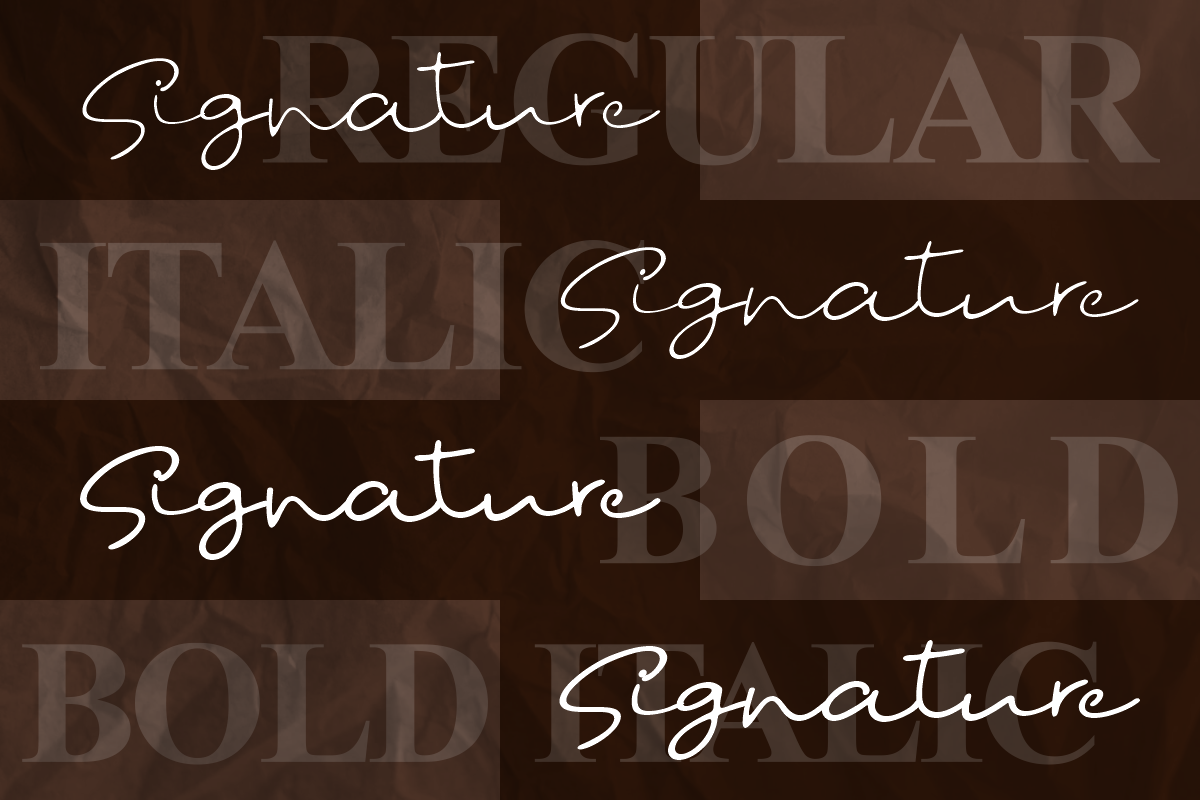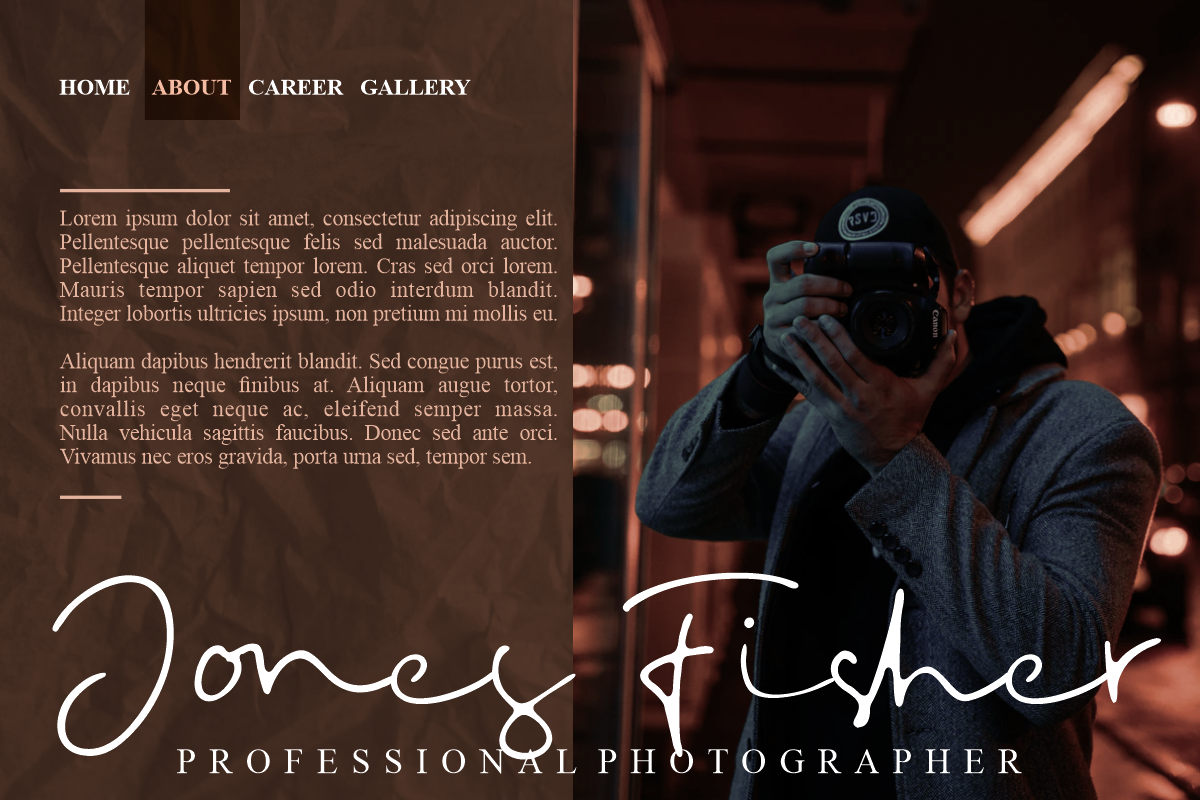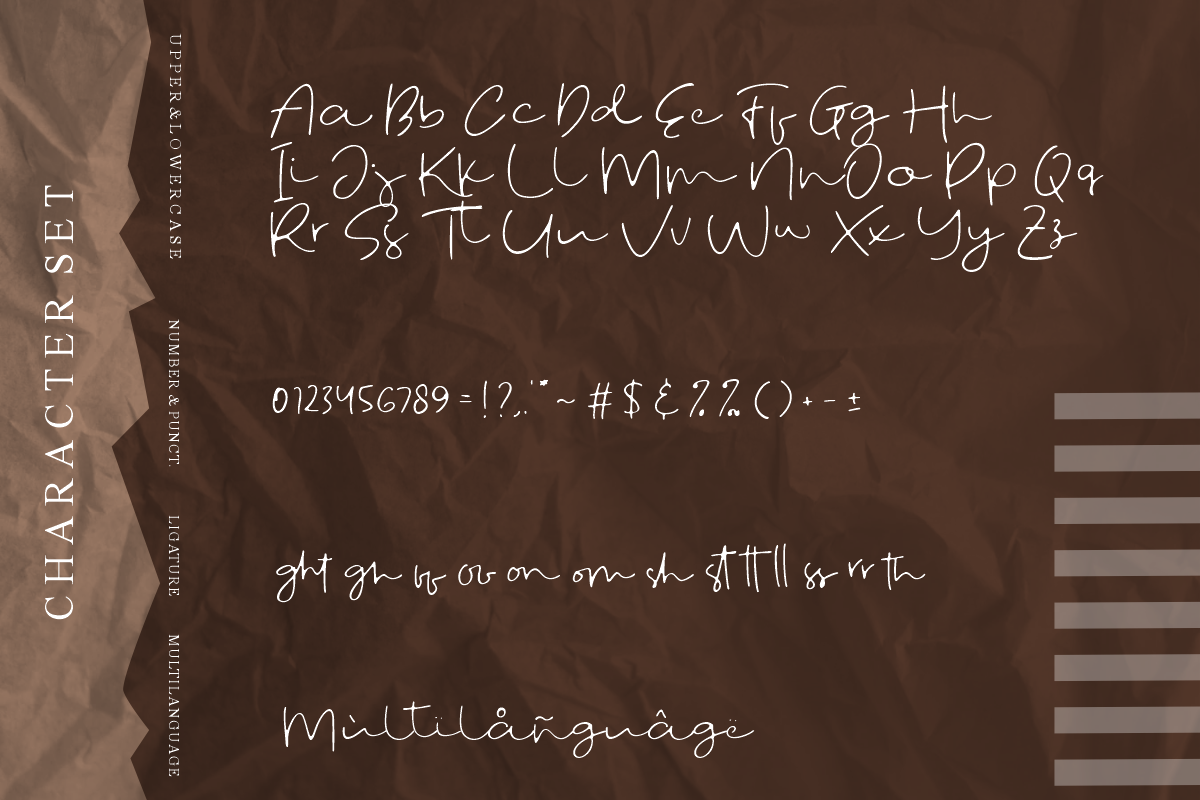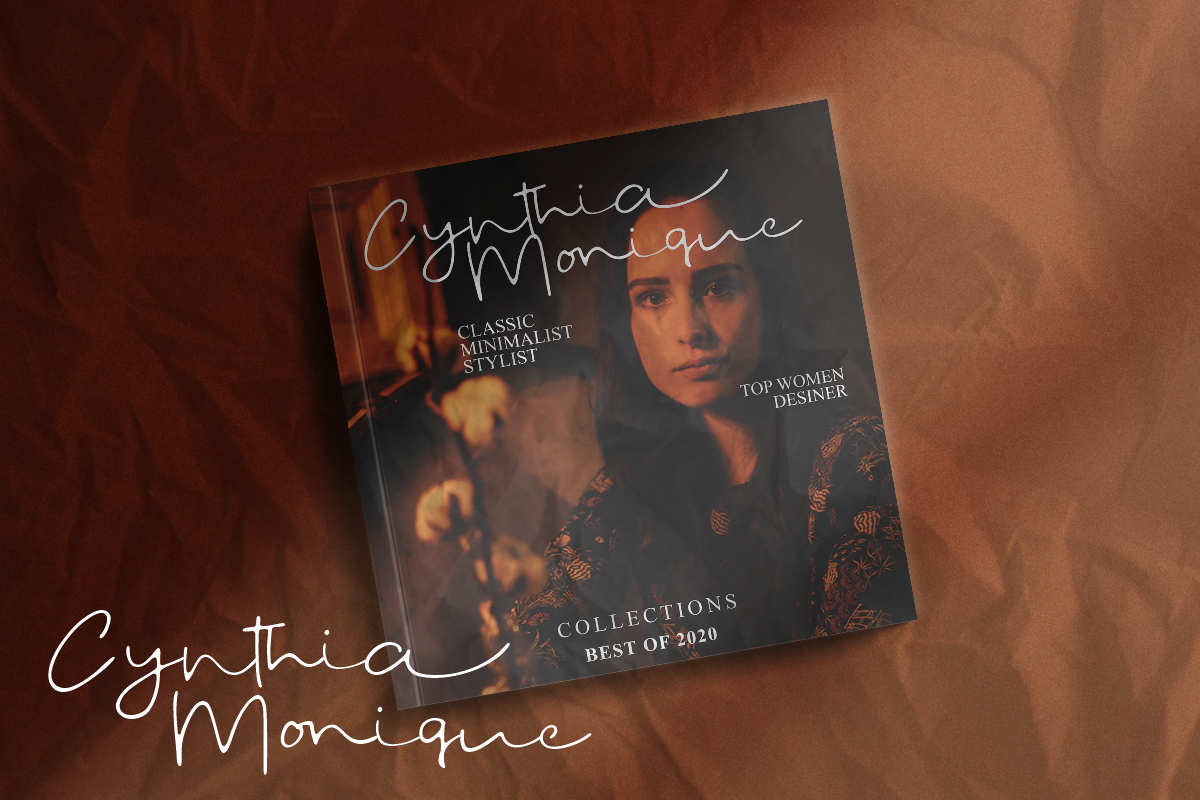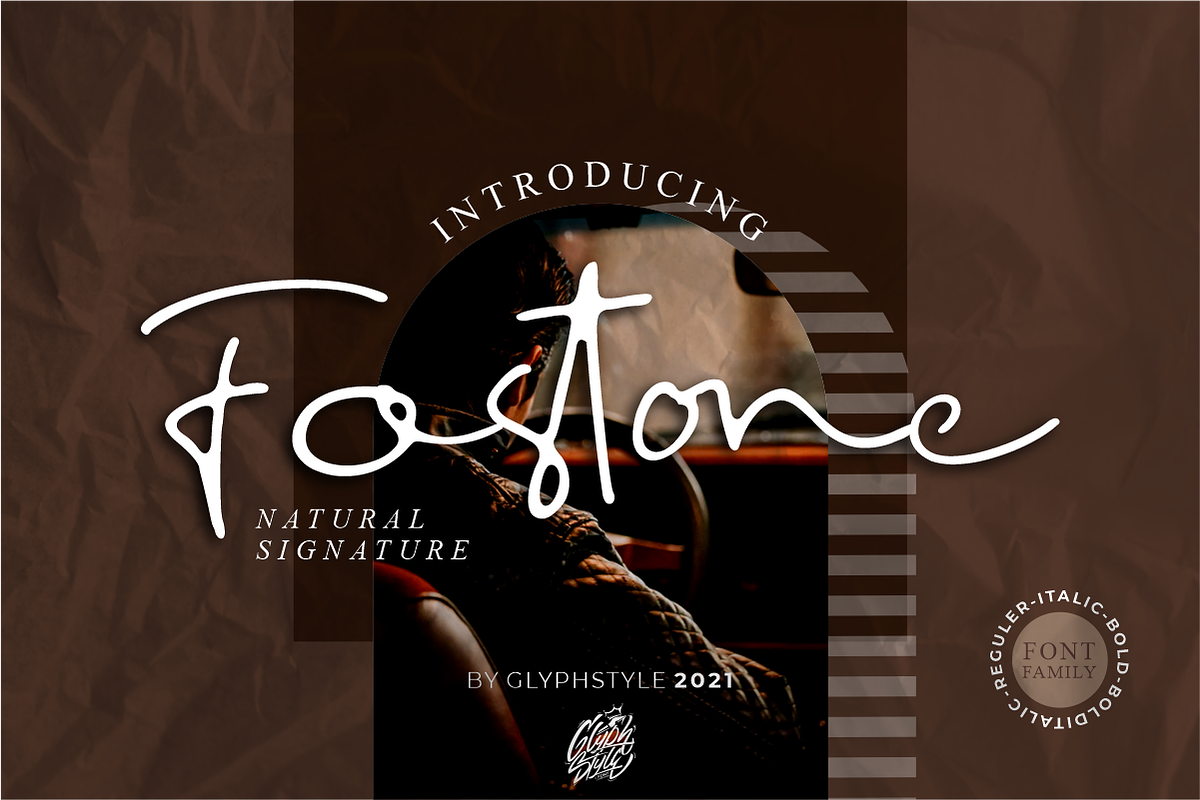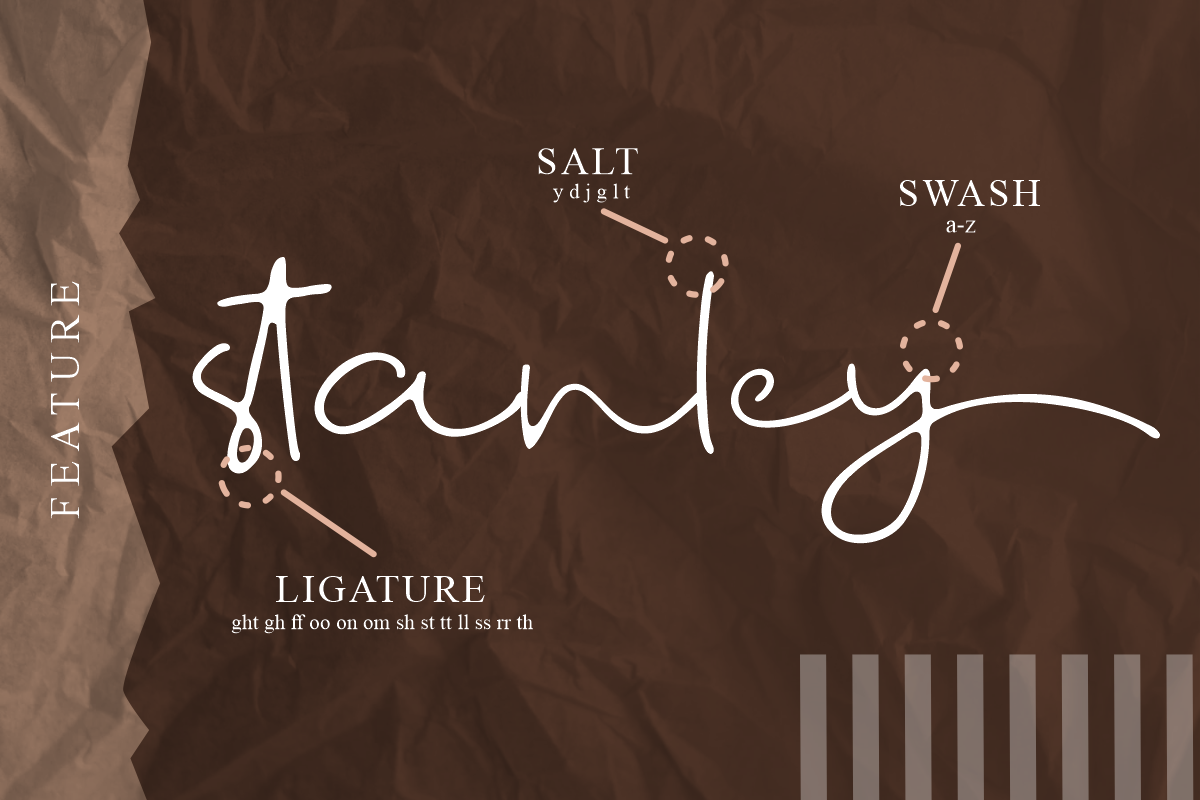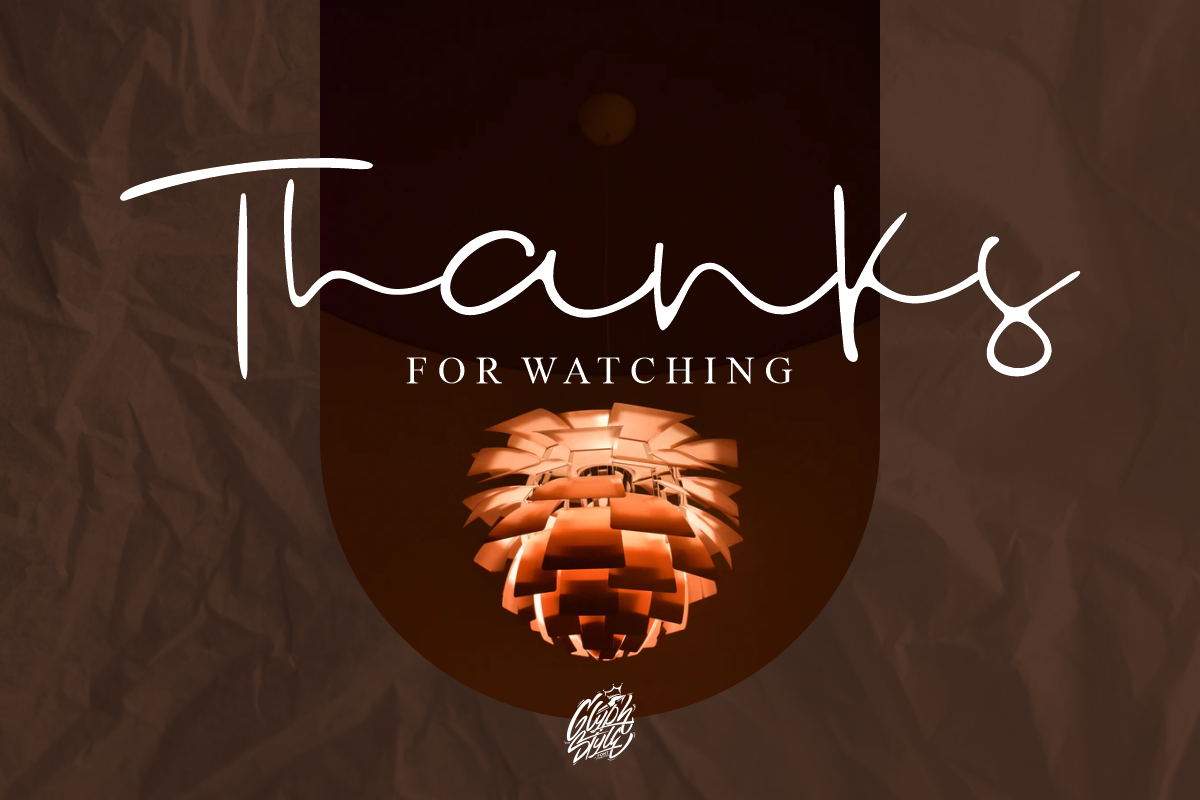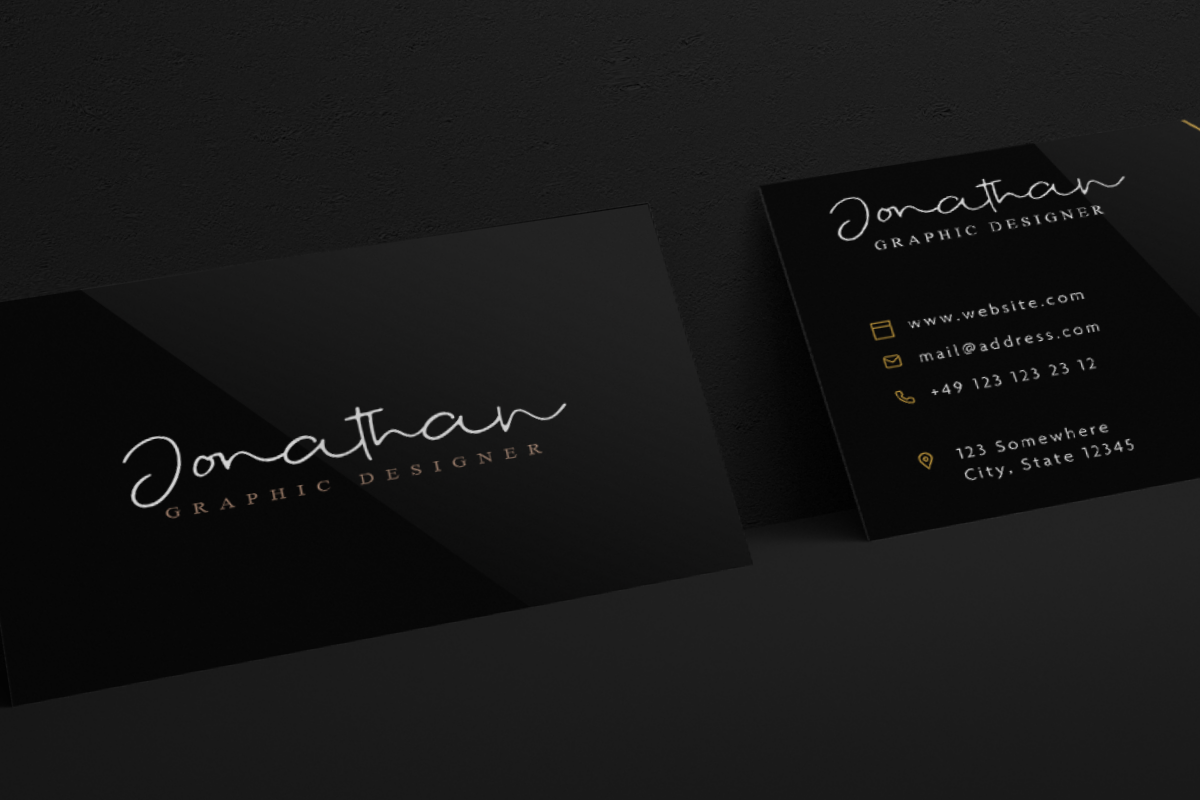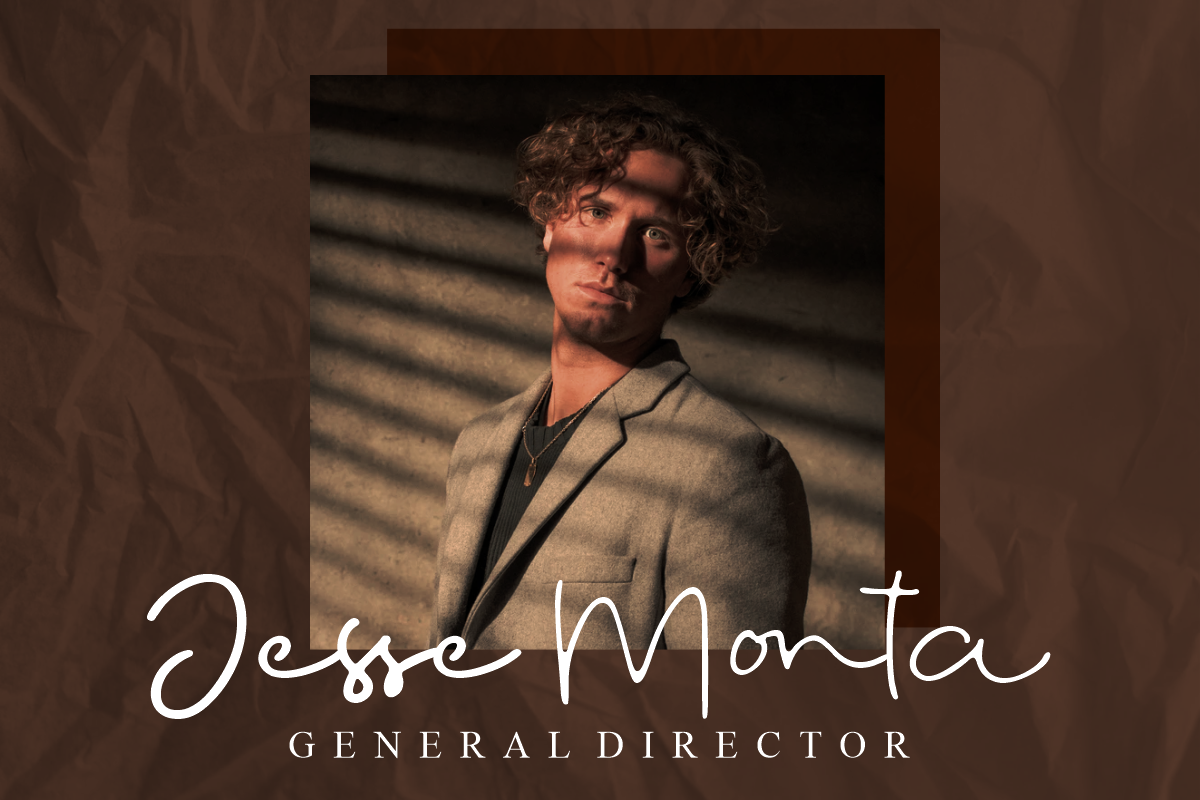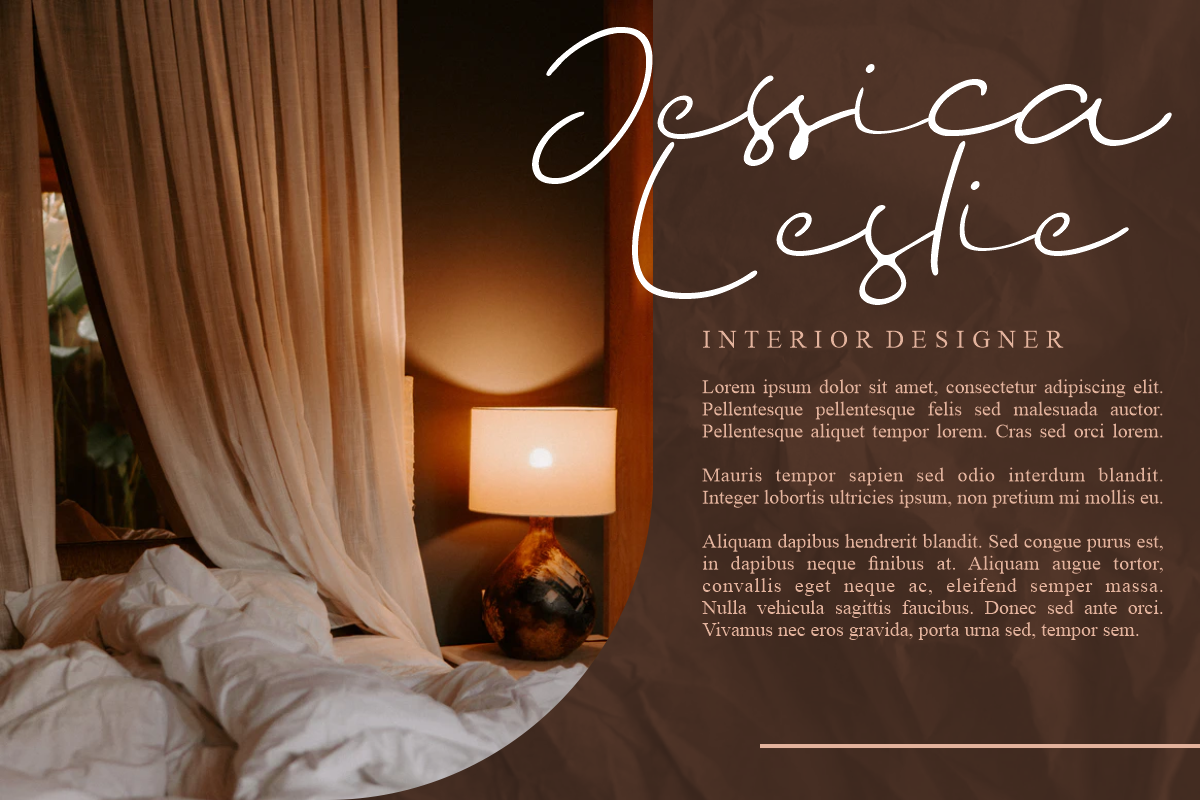
Fostone Natural Signature
Fostone is a signature style font with a natural looking ballpoint pen. Luxurious and elegant font. Font family with 4 version: regular, bold, italic, bolditalic. This signature font is perfect for, watermarks, branding, business, business cards, product logos, etc.
- Font feature
Uppercase, Lowercase, Numerals & Punctuations, Stylistic Alt, swsh (ending swash), Ligature, Multilanguage